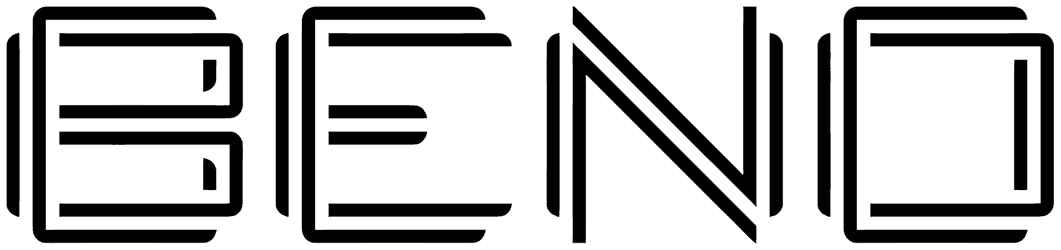
The success of your artwork, like posters, applications, web page templates, video game brochures, or magazines, directly depends on choosing a magical techno font like Bend.
Due to its linear style, it can convey a vibe of innovation, dynamism, modernity, or mirage to the audience’s minds and convince them to follow your work. We seriously offer you to pick up this futuristic font without paying attention to the lack of lowercase letters and numbers.